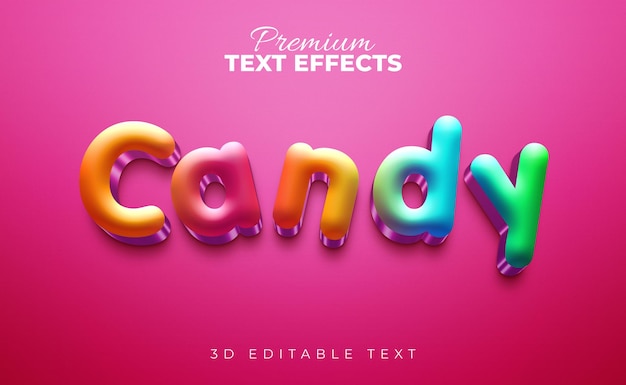
set of colorful font made in shape of a sweet candy created using generative ai technology
Set of colorful font made in shape of a sweet candy created using generative ai technology